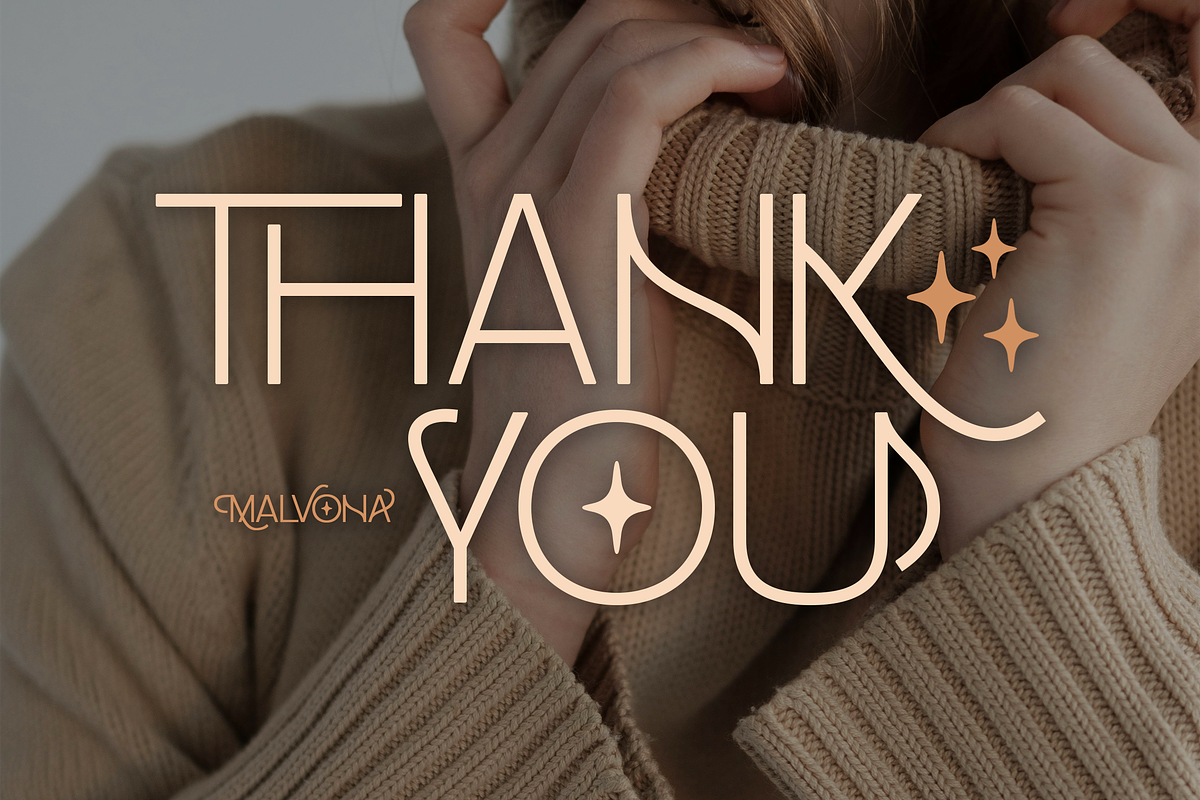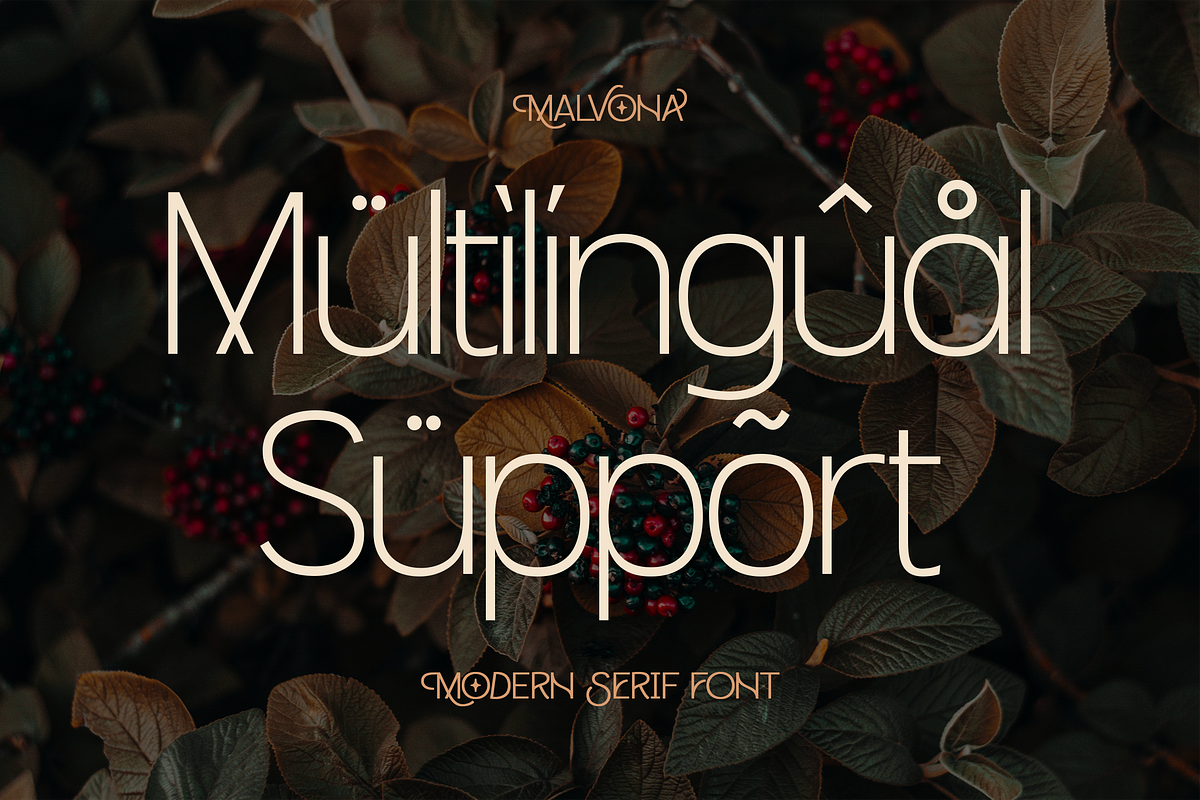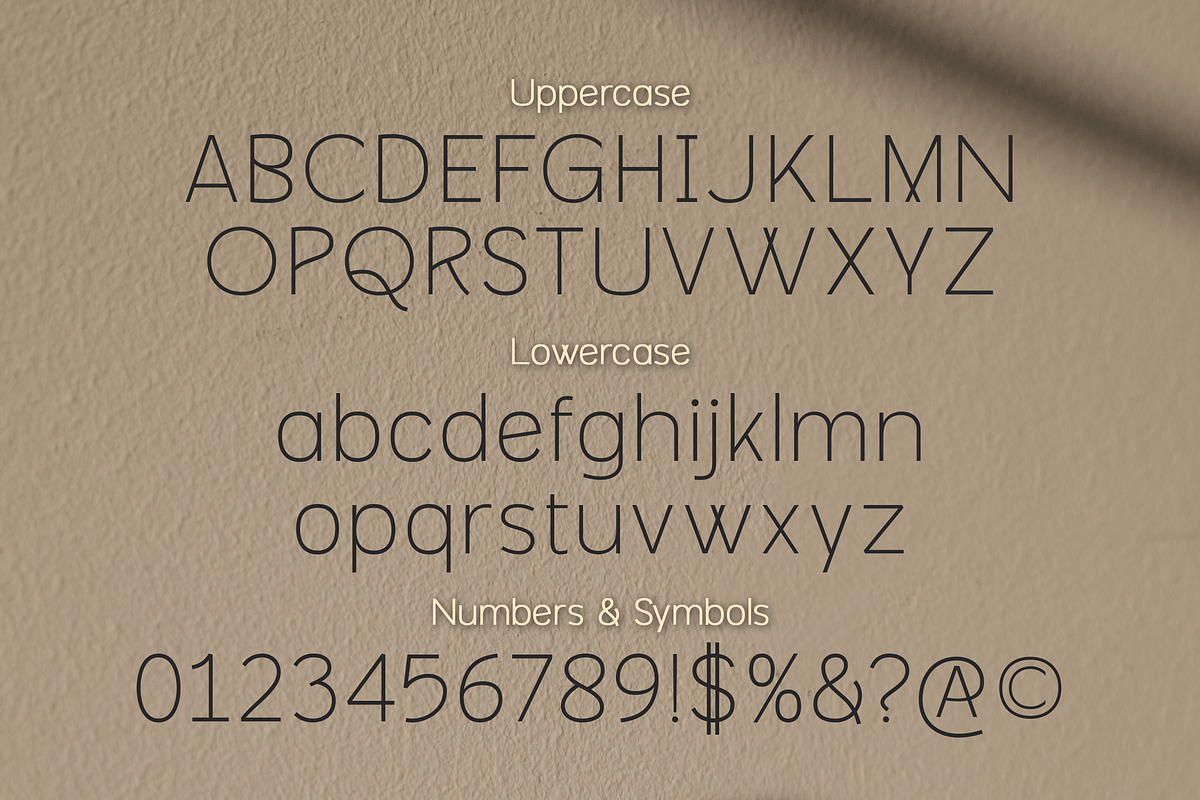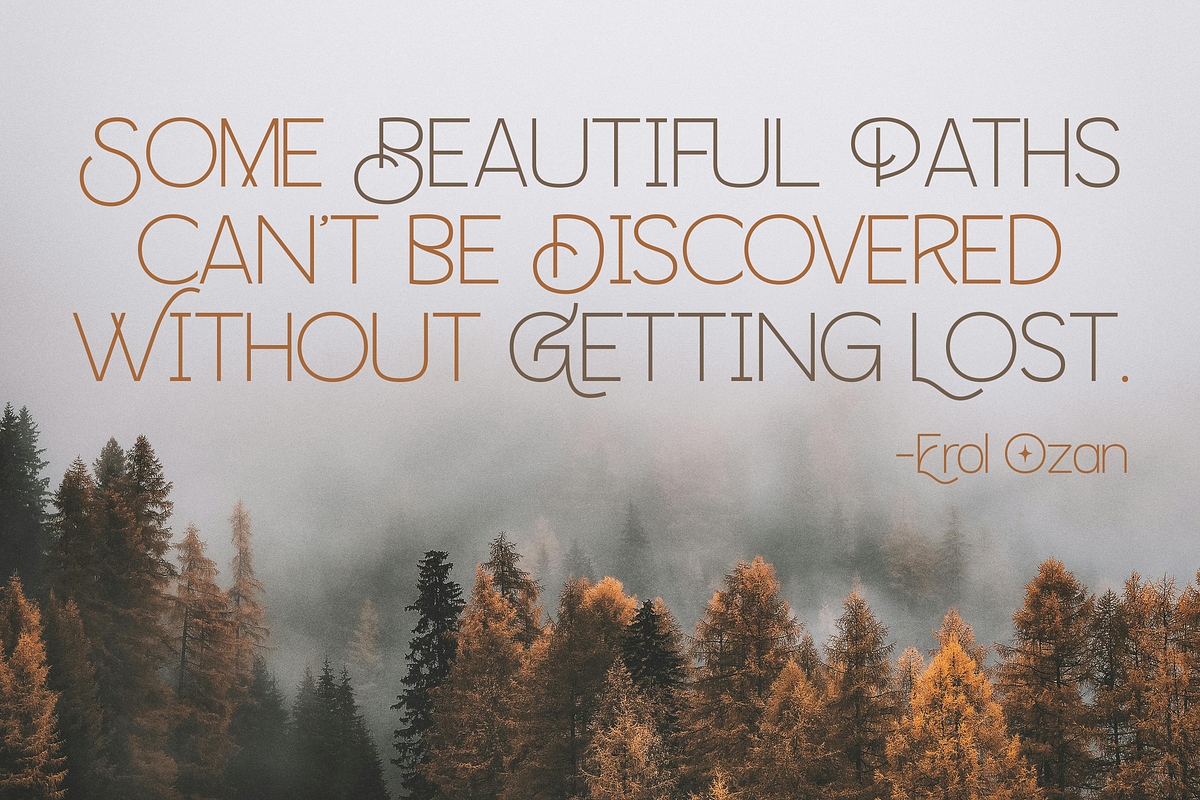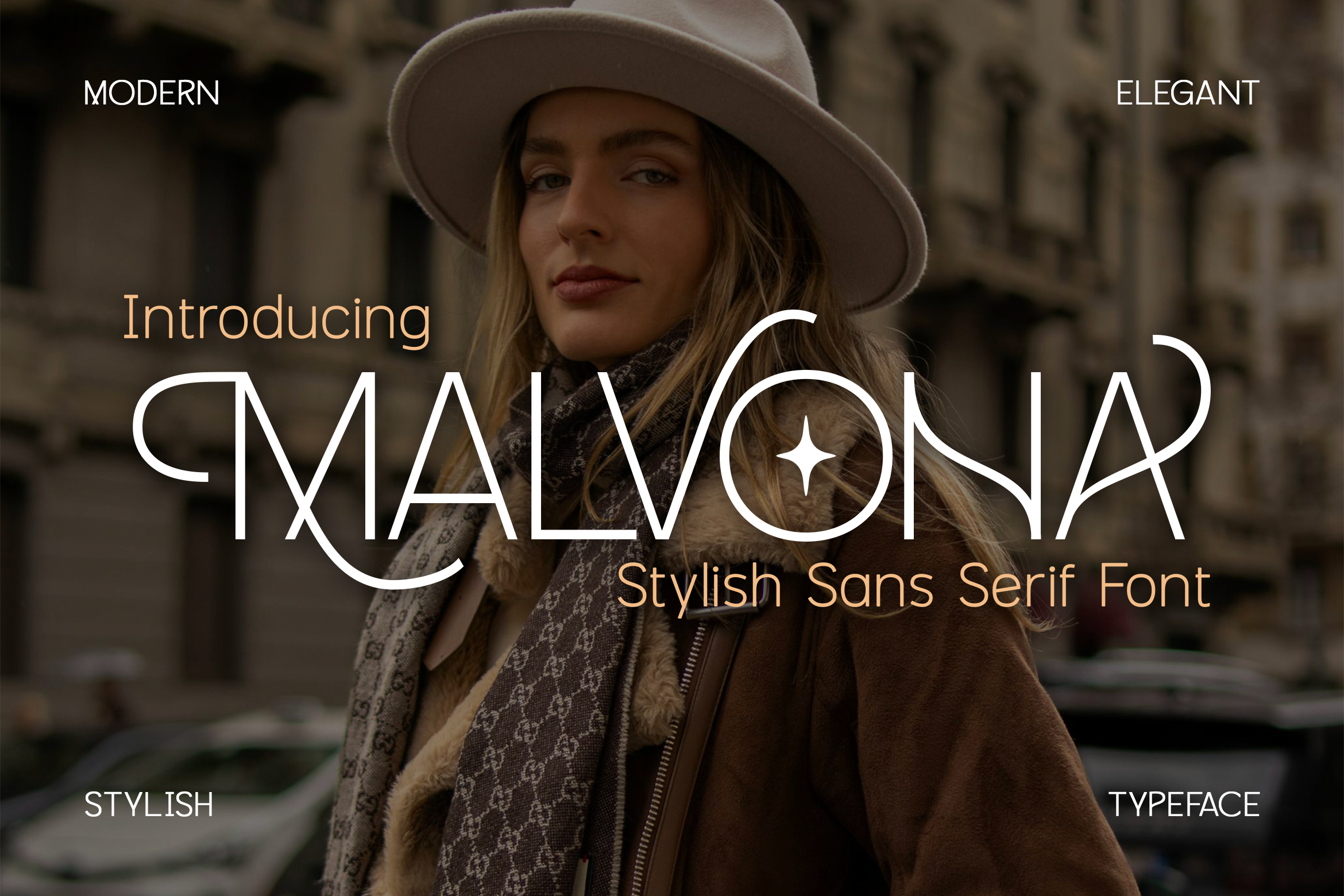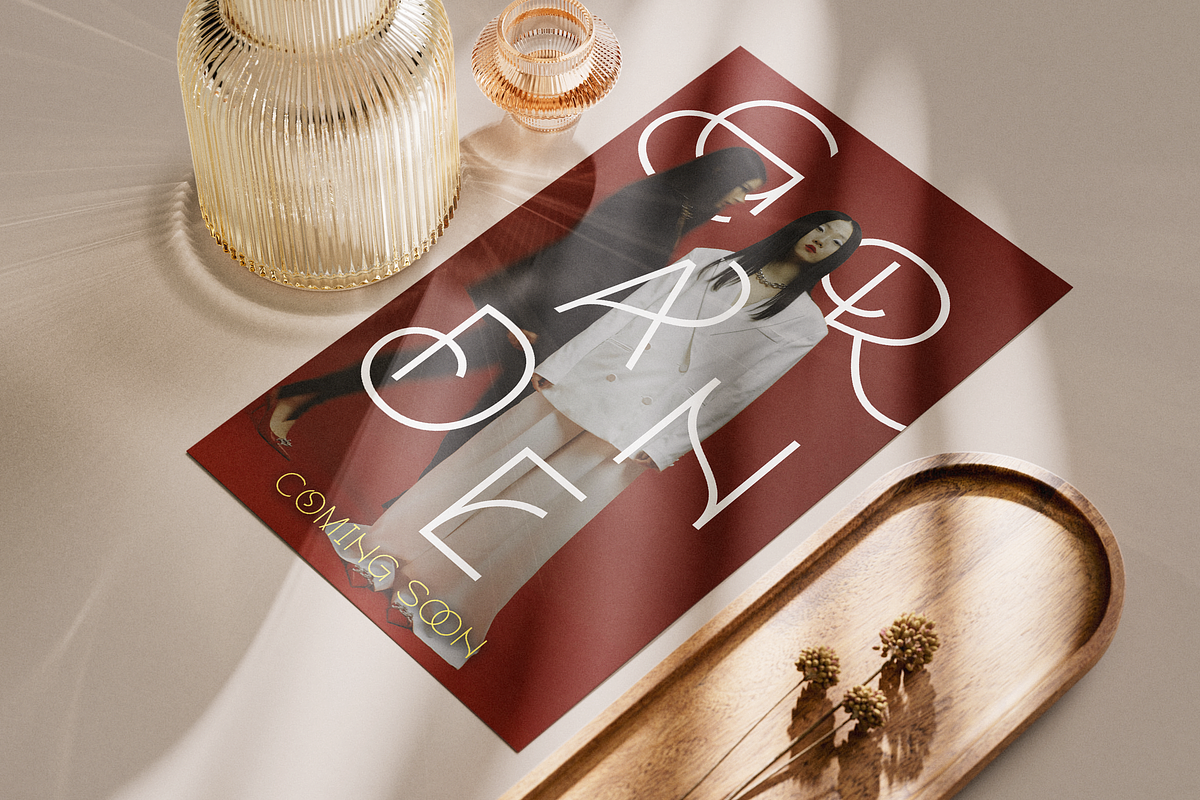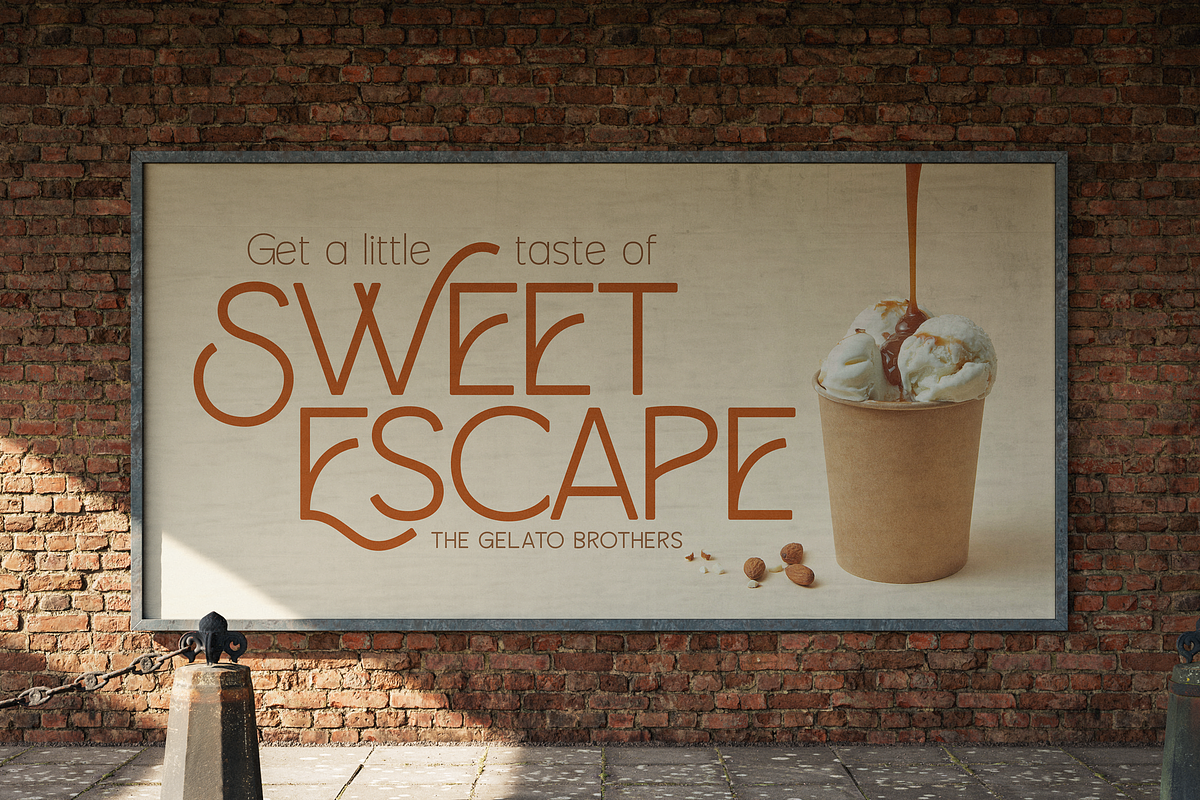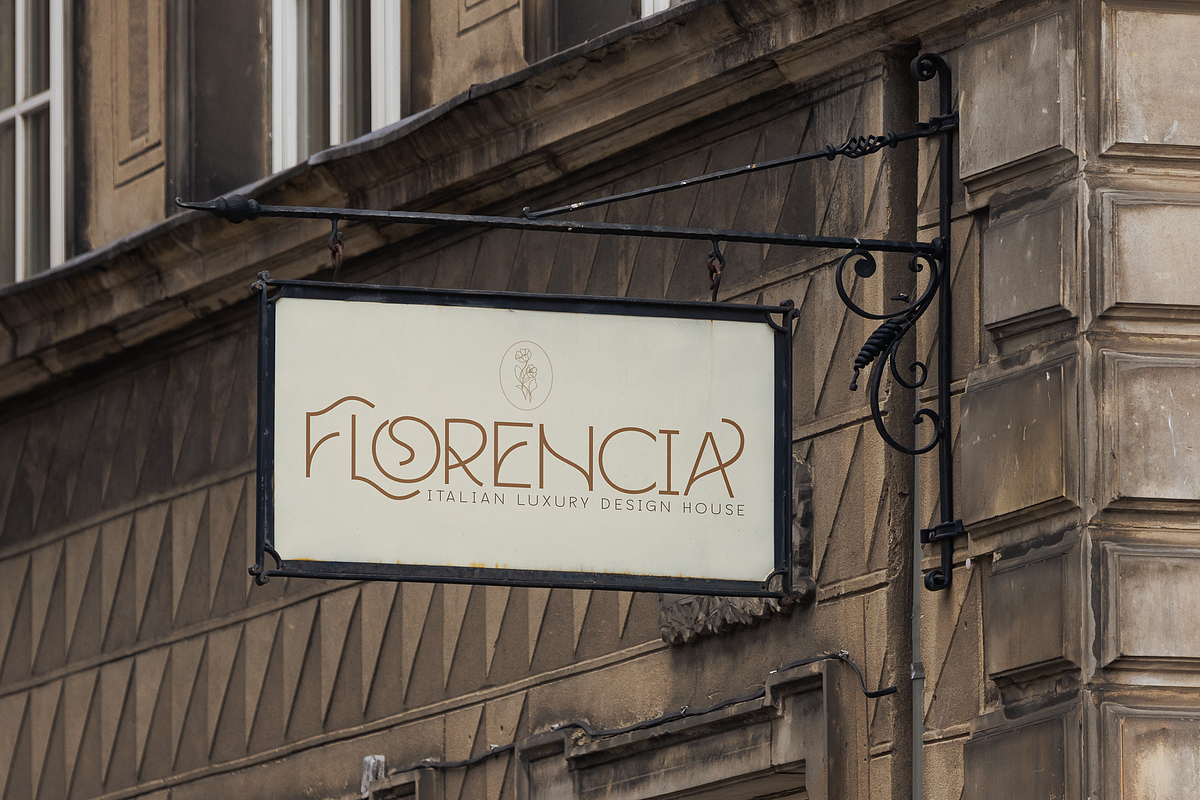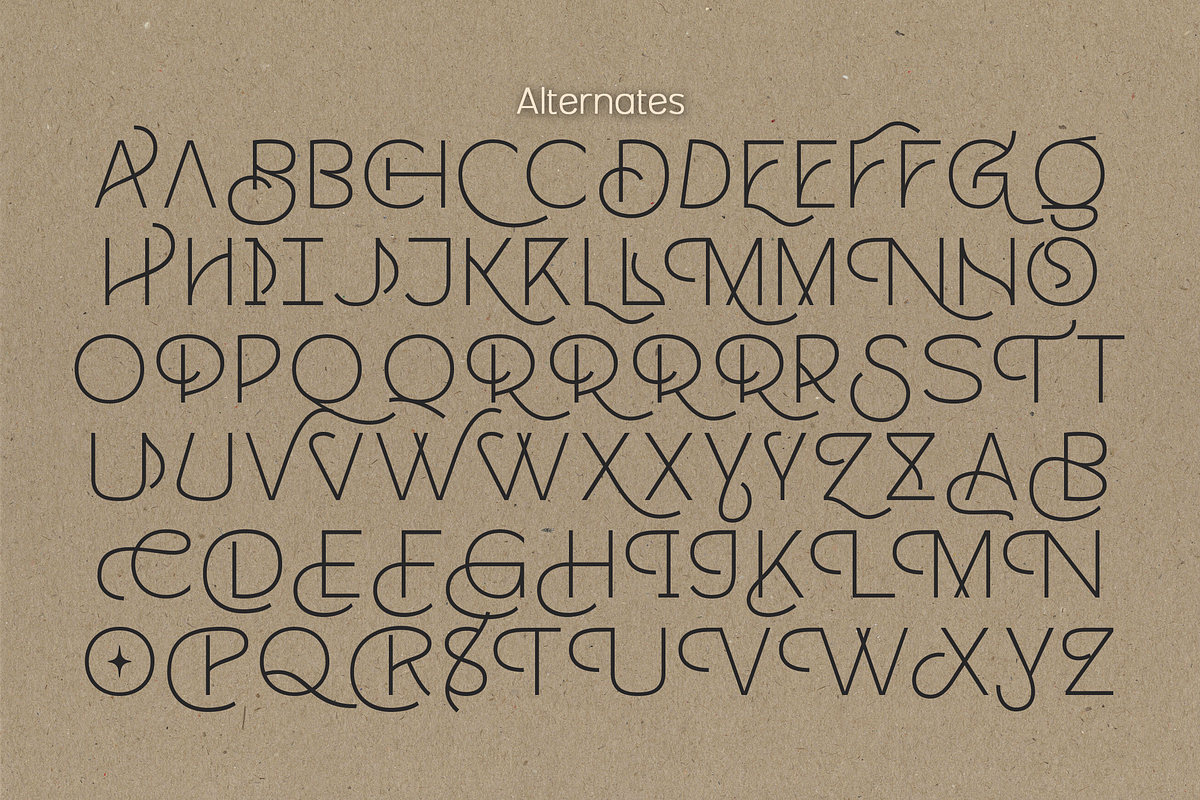
Malvona Stylish Sans Serif Font
Introducing Malvona – A Stylish Sans Serif Font.
Chic yet versatile, Malvona is the perfect choice for a wide range of creative projects. Whether you’re designing a website, crafting social media branding, creating banners, or working on printed materials, this font adapts effortlessly.
Make a bold, lasting impression with the sleek and modern sophistication of Malvona’s stylish sans serif design.
- Multilingual & Ligature Support
- Full sets of Punctuation and Numerals